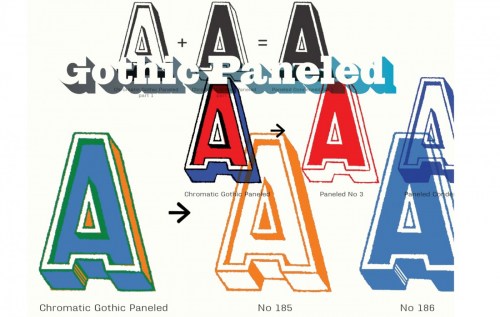
The proliferation of 19th (and 20th) century wood type and its impact on typographic norms, with David Shields
Throughout the nineteenth (and early twentieth) century the proliferation of wood type played an integral role in the creation of American visual culture. With the introduction in 1827 of innovative production techniques, affording low cost and the proliferation of a wide range of styles and sizes, wood type gave tremendous impetus to job printing and mass advertising.